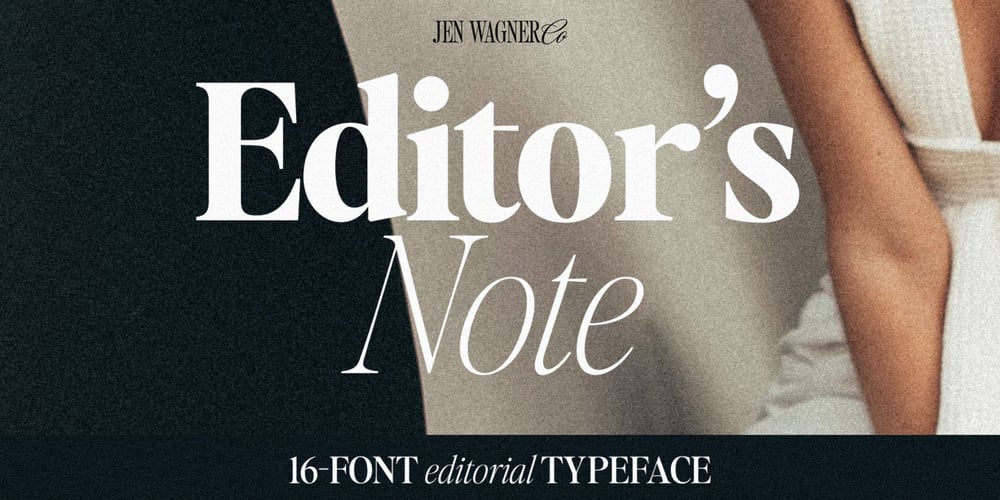
Editors Note Font Family was designed by Jen Wagner and published by Jen Wagner Co.. Editors Note contains 16 styles and family package options. Say hello to the Editor’s Note Family, an editorial serif display that includes 16 fonts, regular and italic, from Hairline weight to Bold, and still has all the clean lines, tight curves, and trendy minimalist vibes!I’ve been loving the clean, editorial type trend happening in design right now (let’s be real, there’s always a place for timeless editorial type).Editor’s Note is a stunningly crisp upper and lowercase typeface that looks incredible in both large settings as a display text (think big headers, pretty quotes, calls to action, etc.).I’ve been loving combining the regular and italic, especially in big, bold quotes.